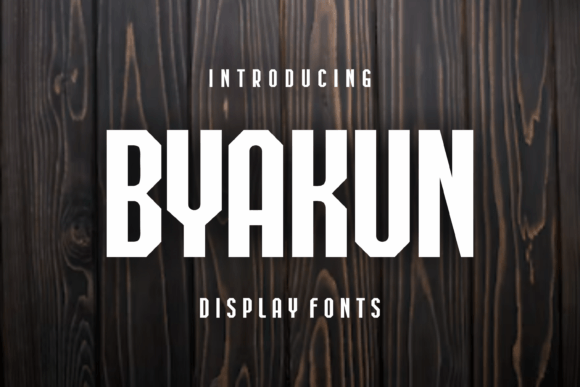
The Perfect Typographic Touch: Byakun Font
As a designer, there’s nothing quite like the thrill of bringing a concept to life. The moment you finally nail that perfect color palette, the layout falls into place, and the text jumps off the page in all its glory. That’s when you know you’ve created something special. But have you ever felt like your font choices are holding you back? That’s where the Byakun Font comes in – a cool and modern display font that’s ready to elevate your creations to the next level.
With its sleek lines and versatile style, the Byakun Font is the perfect addition to any designer’s library. Whether you’re working on a project that requires a touch of sophistication or a dash of playfulness, this font is sure to deliver. And with its wide range of applications, from branding to digital media, the Byakun Font is an invaluable asset for designers looking to take their work to the next level.
Byakun Font Key Features
- Font Family: Byakun is a unique and elegant sans-serif font family.
- Unique Characteristics: Byakun features a distinctive x-height, subtle rounded corners, and a clean, minimalist aesthetic.
Byakun Font Review
Overall, I think the Byakun font is a solid choice for designers looking for a unique sans-serif font. ✨ The font’s clean and modern design makes it suitable for a wide range of projects, from digital interfaces to print materials.
- ✨ Clean and modern design: The font’s simplicity makes it easy to read and understand, even at small font sizes.
- ✨ Versatility: Byakun can be used for a variety of projects, from digital interfaces to print materials, making it a great addition to any designer’s font collection.
- ✨ Good for body text: The font’s clean design and clear typography make it well-suited for body text, allowing readers to focus on the content.
- ⚠️ Limited expressiveness: While the font is clean and modern, it may lack the expressiveness and personality of other fonts, making it less suitable for projects that require a strong emotional connection.
- ⚠️ May not stand out: In a crowded font market, Byakun may blend in with other sans-serif fonts, making it harder to stand out in a design.
Overall, I think Byakun is a solid choice for designers looking for a clean and modern font. While it may not be the most exciting or expressive font, it gets the job done and is easy to use.
To get the most out of the Byakun font, use it in headings and titles to add a touch of elegance to your designs. Common use cases include: wedding invitations, business cards, and branding materials.